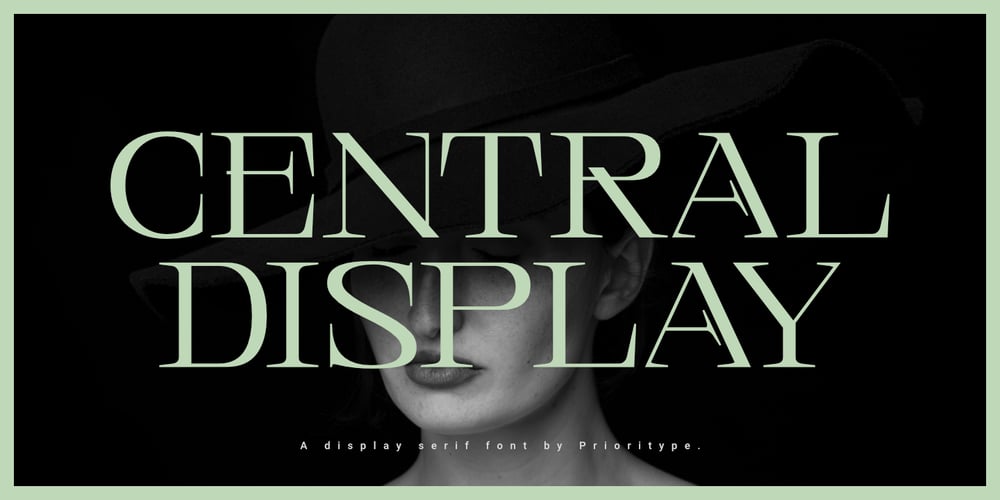
Central Display Font Family was designed by Prio Nurokhim Aji and published by Prioritype. Central Display contains 2 styles and family package options. Central Display – A Display Serif Font (All Caps)This typeface is inspired by fashion magazines. Strong and classy character. For the main display is very suitable. For example in poster design, branding, social media posts, magazine covers and so on. Features: Uppercase, Lowercase, Numeral, Punctuation & Multilingual. Multilingual contained: Afrikaans, Albanian, Asu, Basque, Bemba, Bena, Breton, Catalan, Chiga, Cornish, Danish, Dutch, English, Estonian, Filipino, Finnish, French, Friulian, Galician, German, Gusii, Indonesian, Irish, Italian, Kabuverdianu, Kalenjin, Kinyarwanda, Luo, Luxembourgish, Luyia, Machame, Makhuwa-Meetto, Makonde, Malagasy, Manx, Morisyen, North Ndebele, Norwegian Bokmål, Norwegian Nynorsk, Nyankole, Oromo, Portuguese, Quechua, Romansh, Rombo, Rundi, Rwa, Samburu, Sango, Sangu, Scottish Gaelic, Sena, Shambala, Shona, Soga, Somali, Spanish, Swahili, Swedish, Swiss German, Taita, Teso, Uzbek (Latin), Volapük, Vunjo, Zulu. Thanks 🙂